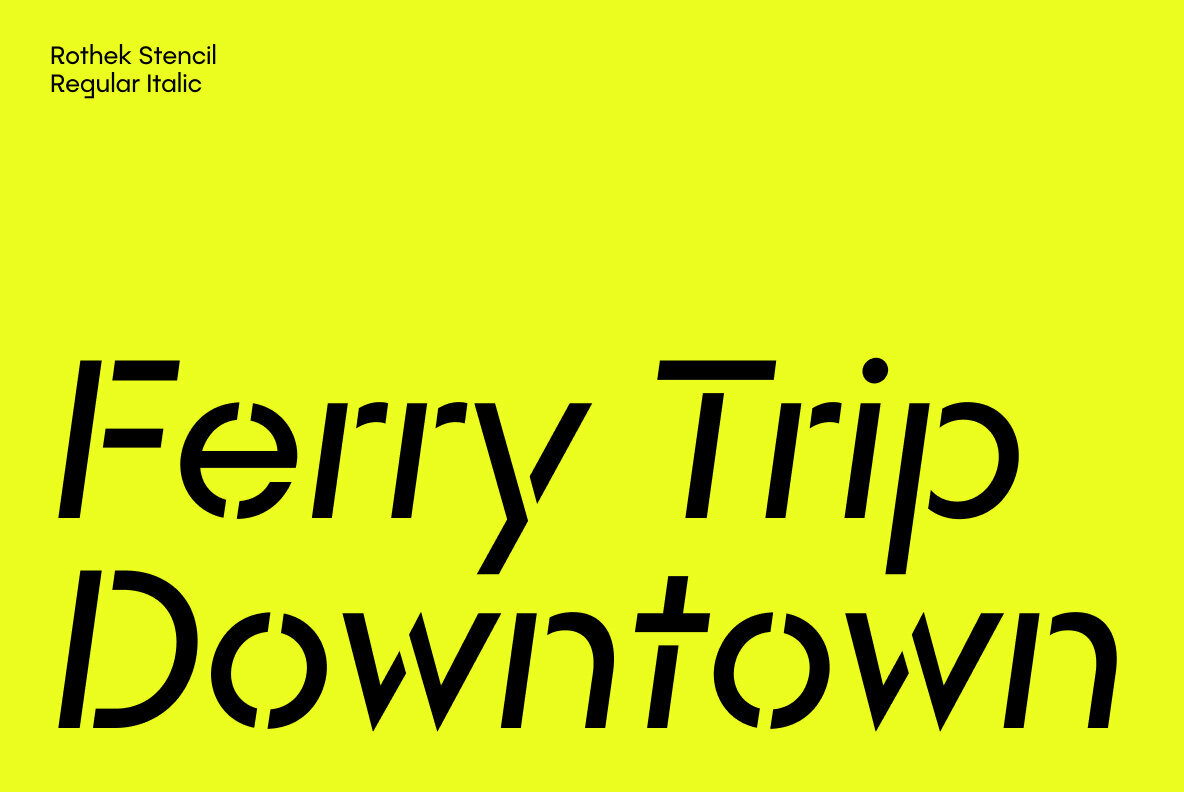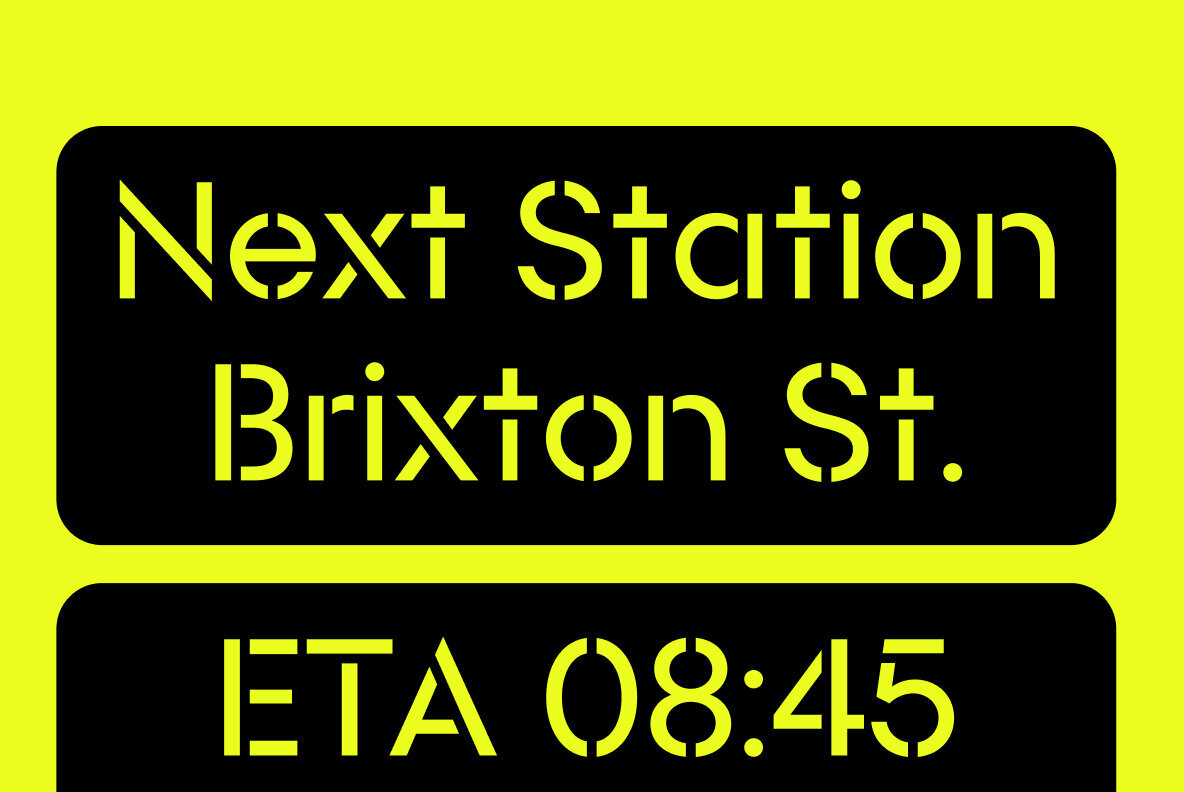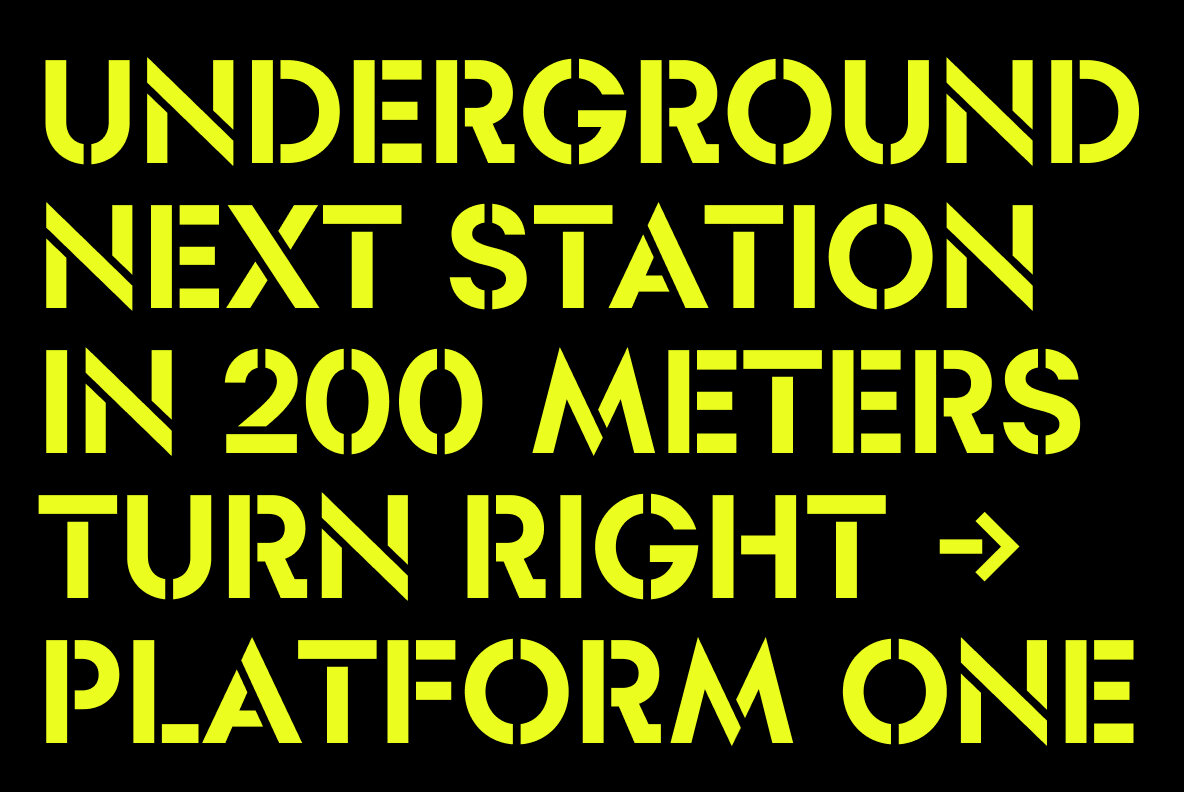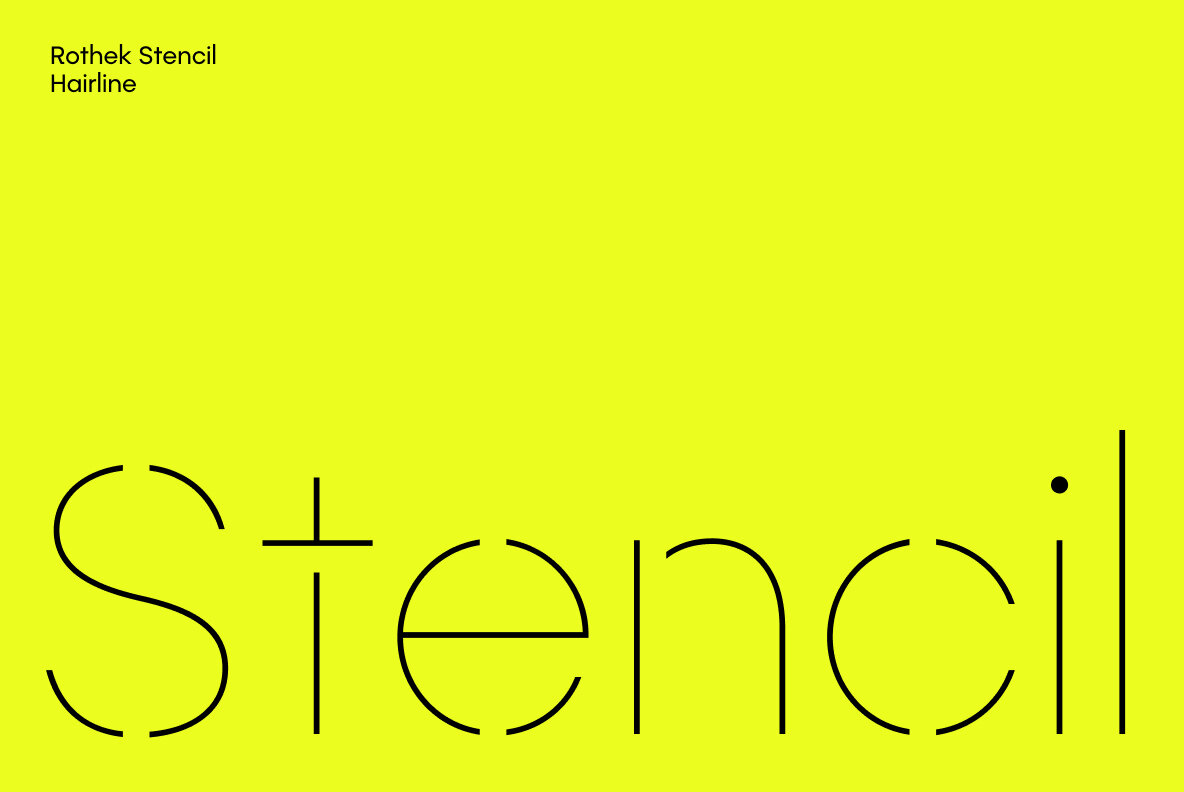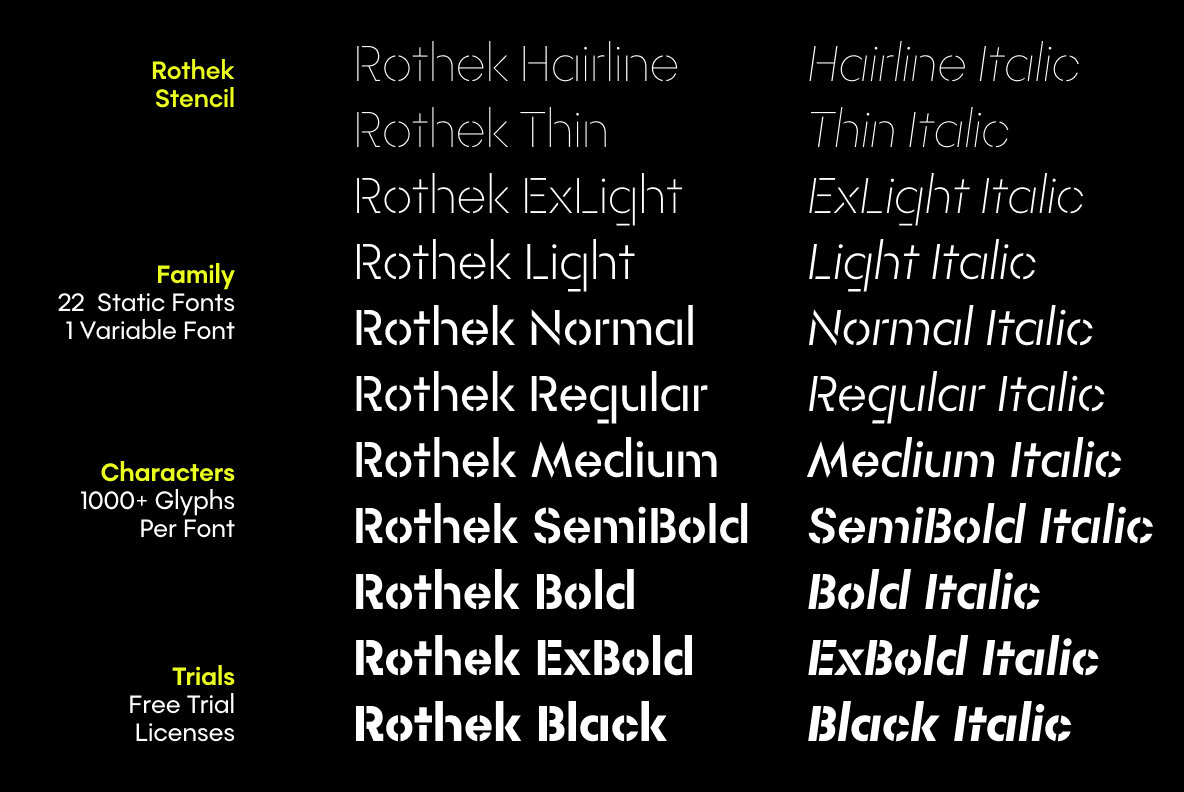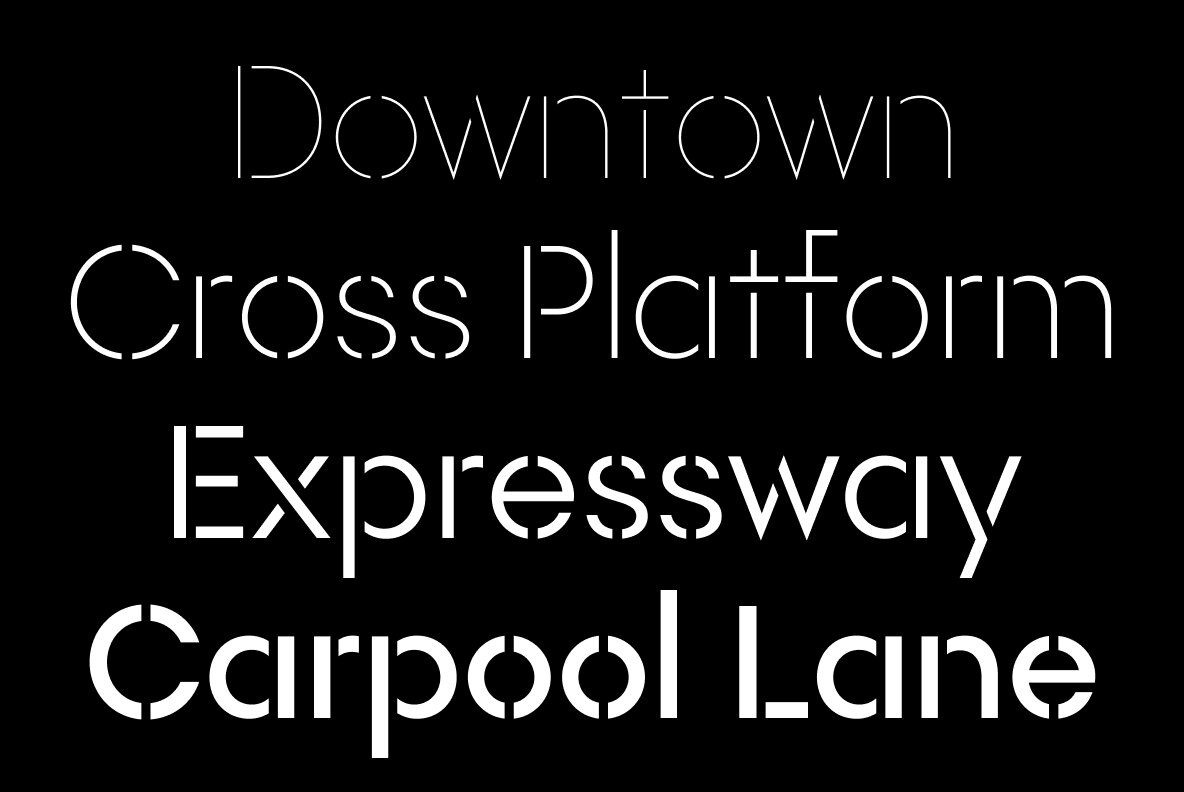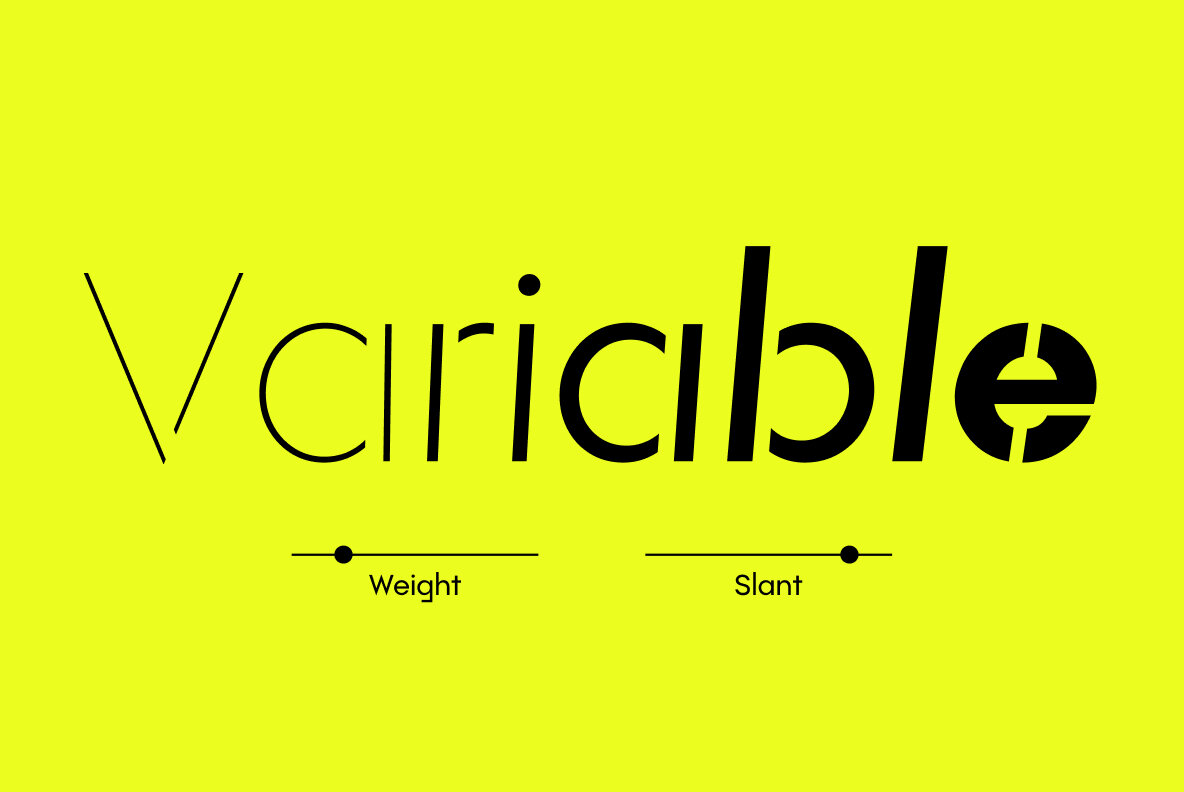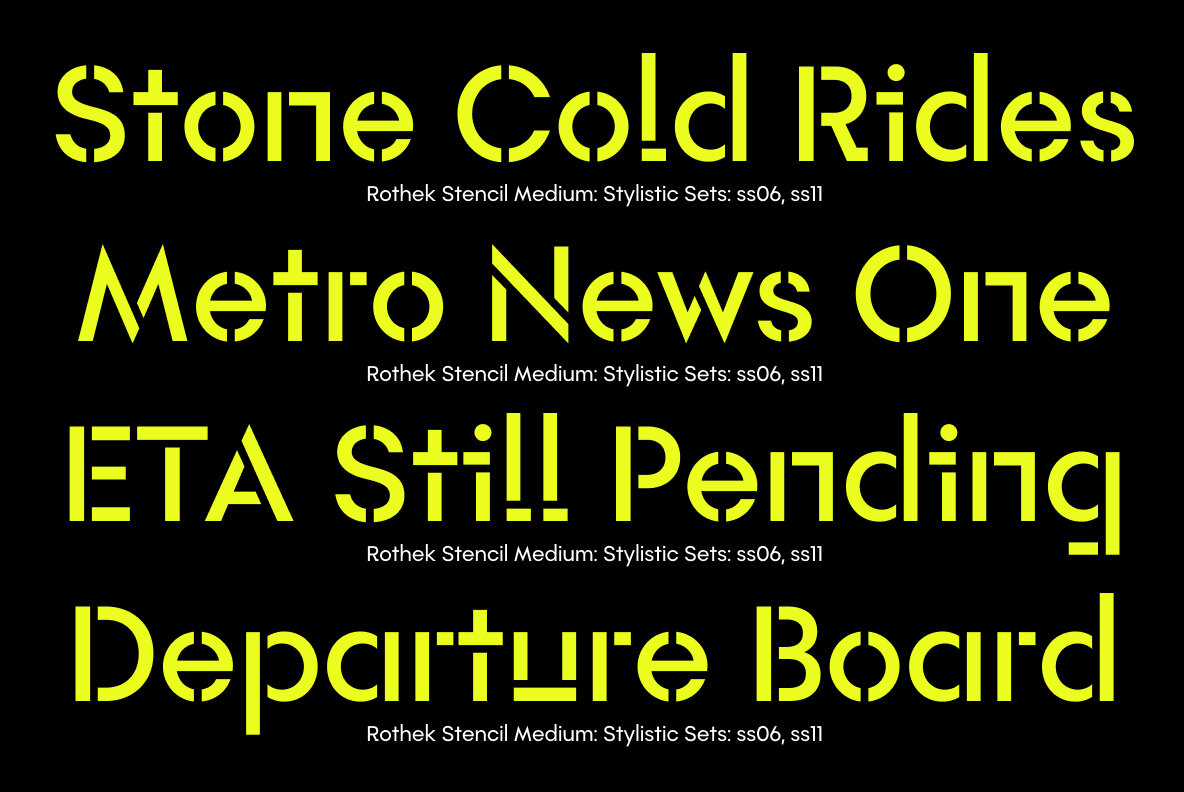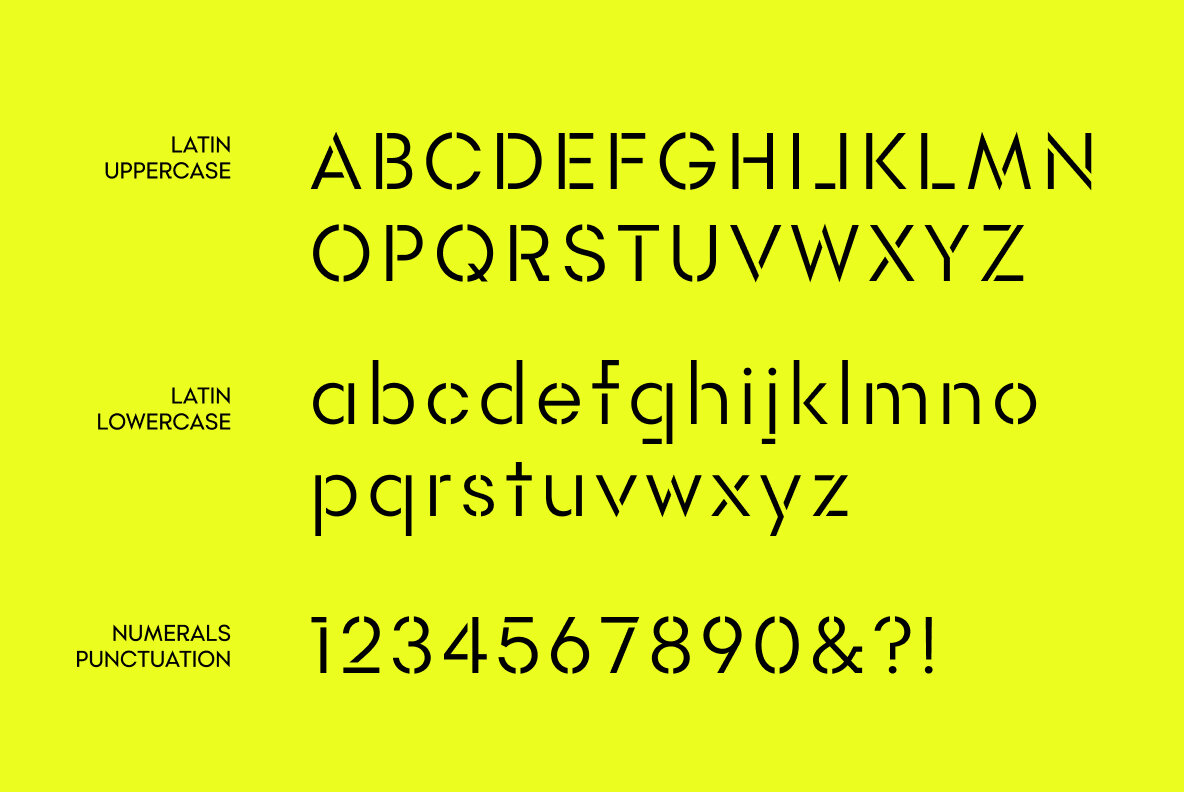
Rothek Stencil Font
Rothek Stencil is a stencilled grotesk released by Groteskly Yours in 2022.
- 1000+ characters per font
- 20 static fonts
- 1 variable fonts
- Extensive OpenType features
- Support for 200+ Languages (Latin & Cyrillic)
- Special Symbols and Features
Rothek Stencil is a stencilled version of Rothek, a geometric sans serif released through Groteskly Yours. While Rothek Stencil preserves the original proportions and structure of the family, some optical compensations were made to accommodate the stencilled version. Rothek Stencil comes in 20 styles (static fonts) or as one variable font. With over 1000 characters on board, it supports more than 200 languages, including most Latin-based languages, Extended Cyrillic, Vietnamese, and many more.
Rothek Stencil can be used together with the original Rothek as a display/headline font–and it also shines as a headline font for any project that calls for a stencil font. While the primary goal was to create a unique and versatile stencilled font to be used at larger sizes, Rothek Stencil works surprisingly well as a text font. Thanks to extensive OpenType features, Rothek Stencil is very versatile. It includes such useful OT features as Case-Sensitive Punctuation, multiple Stylistic Sets, various numerals (Oldstyle, Tabular, Fractions, etc), and many others.